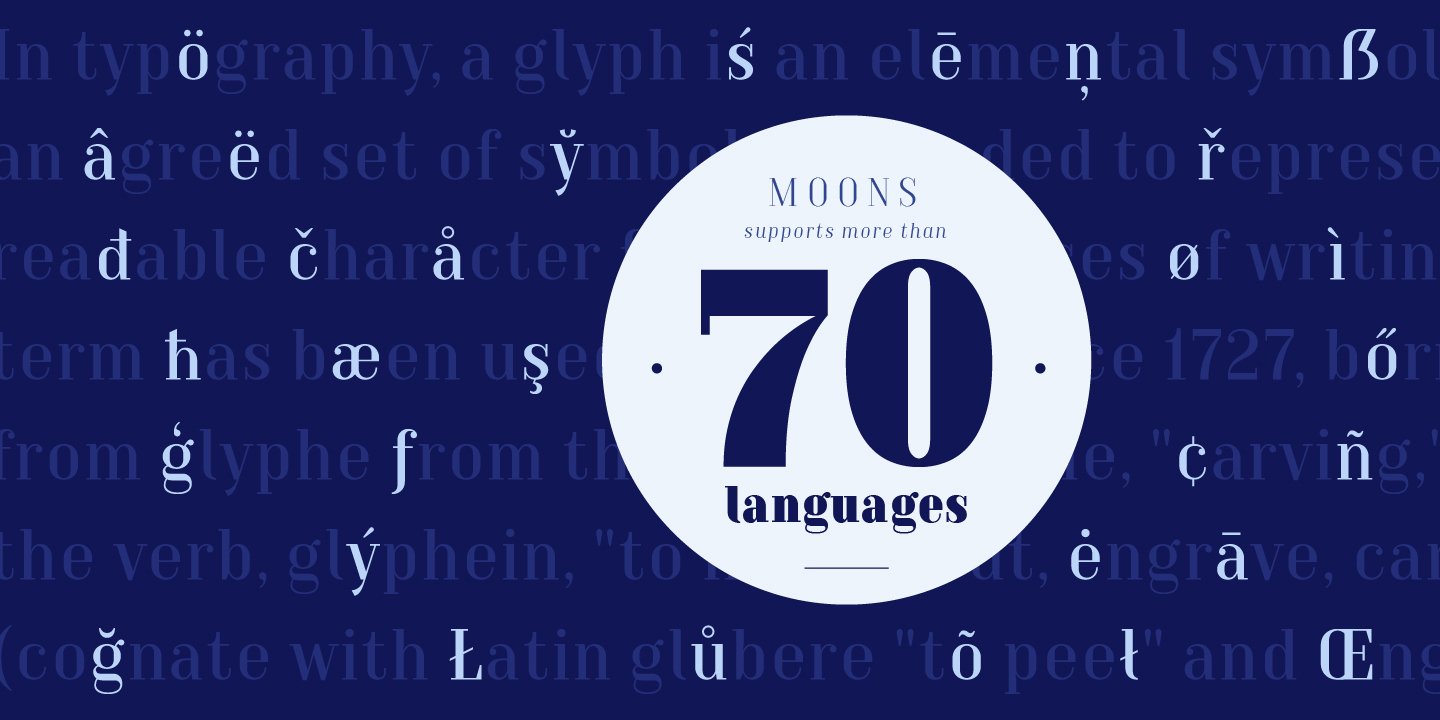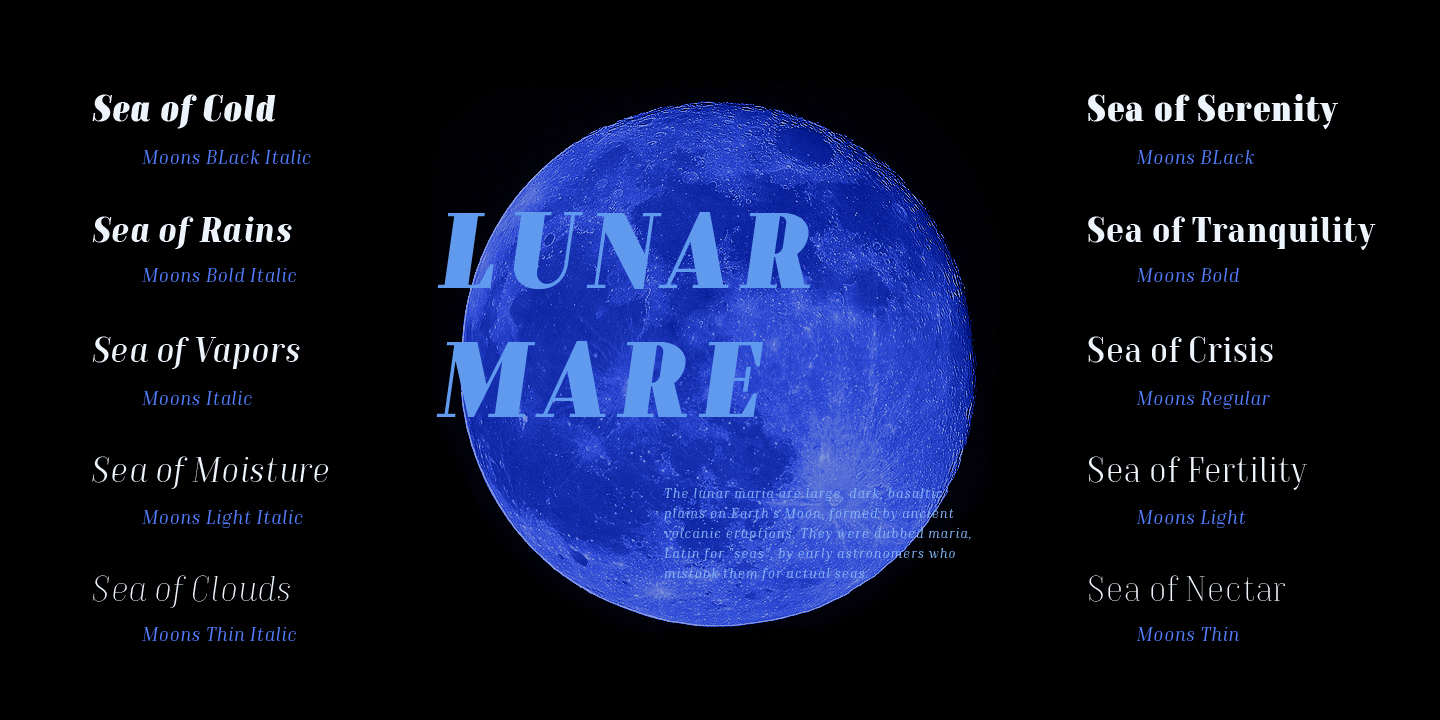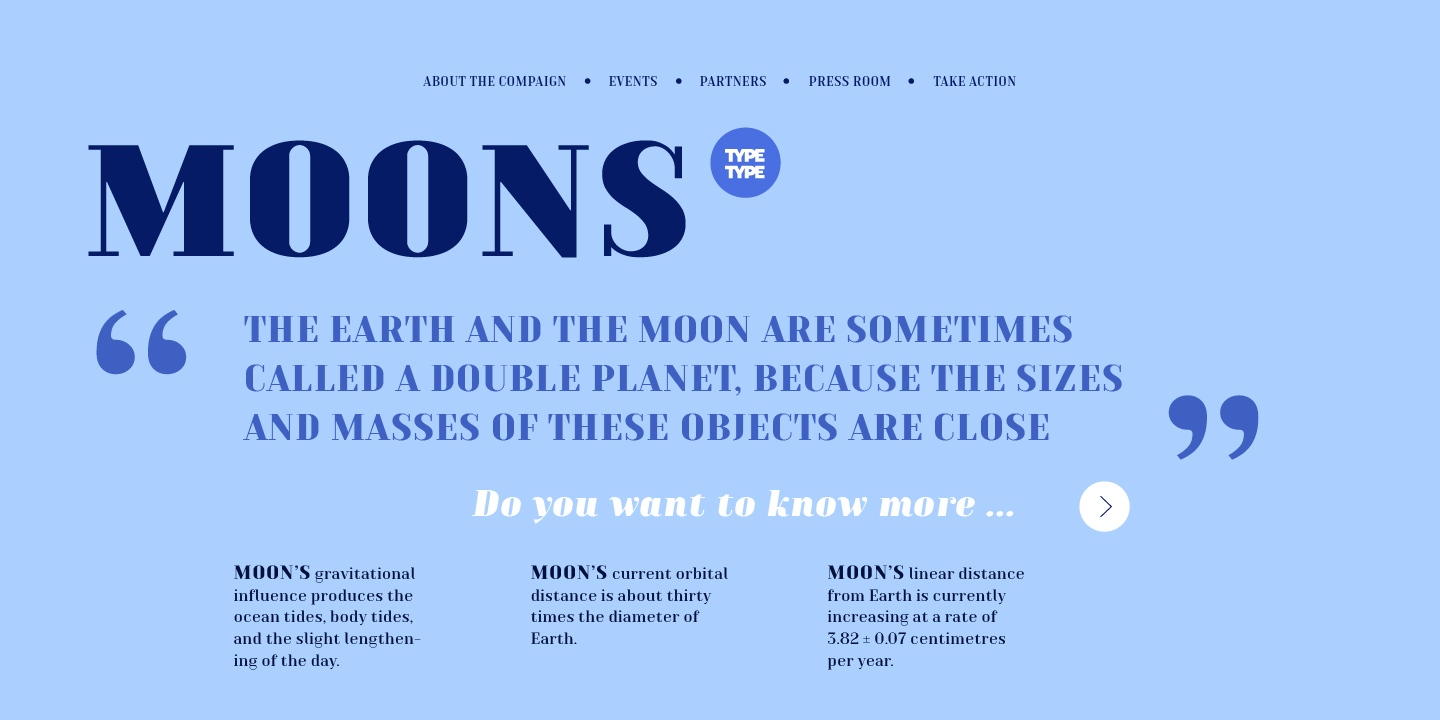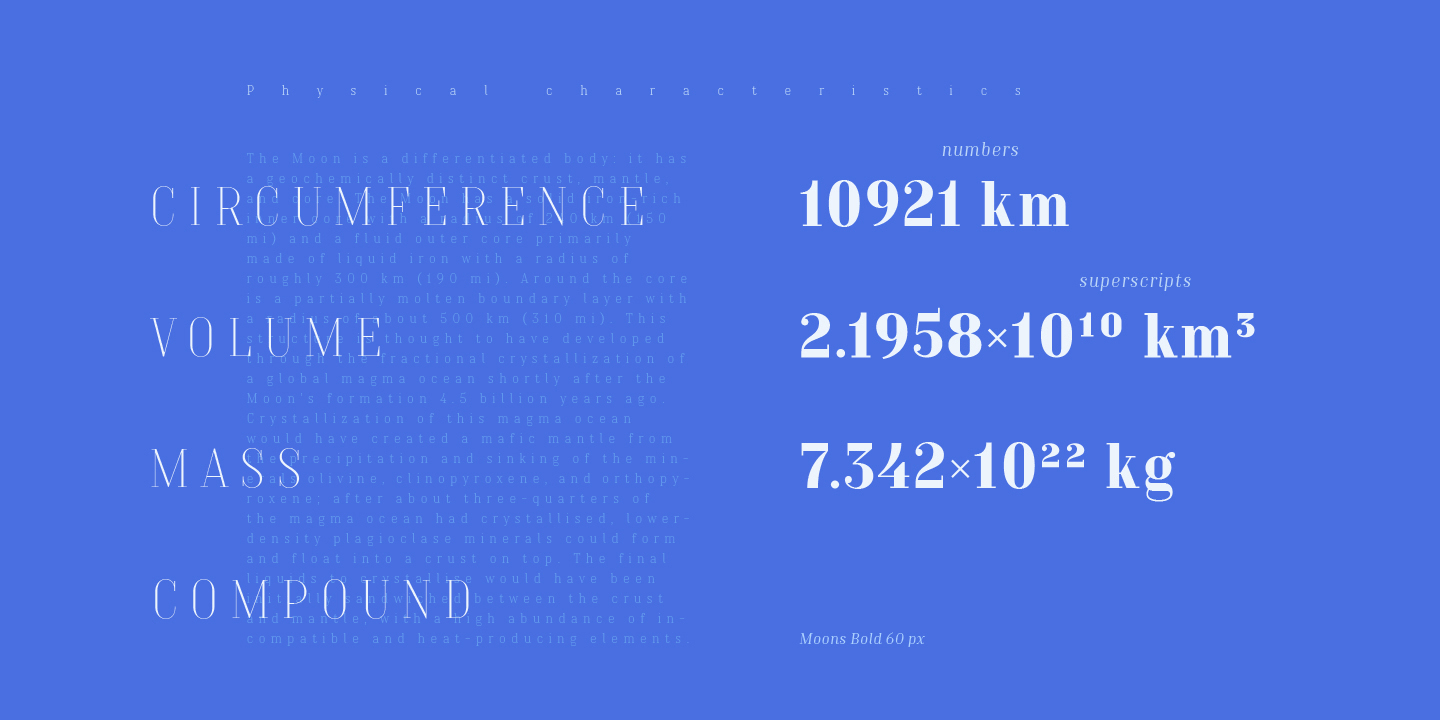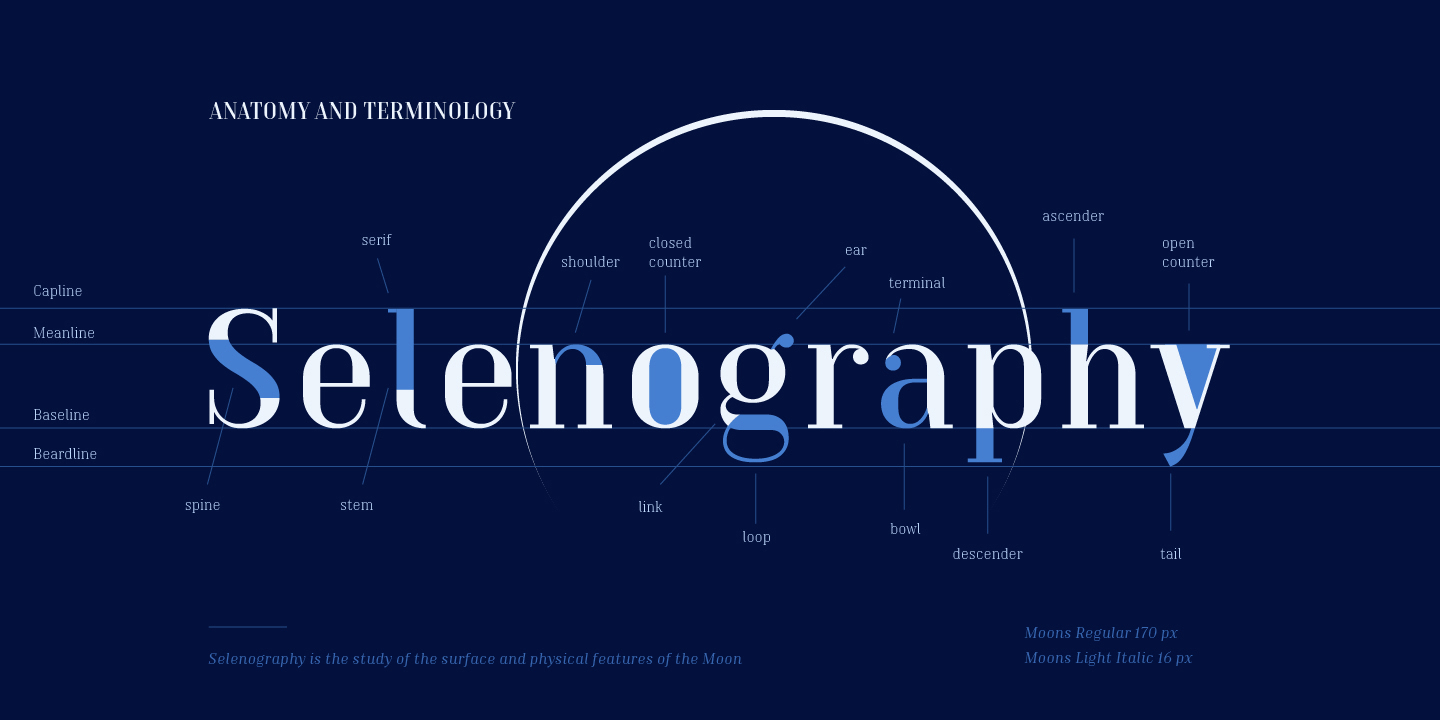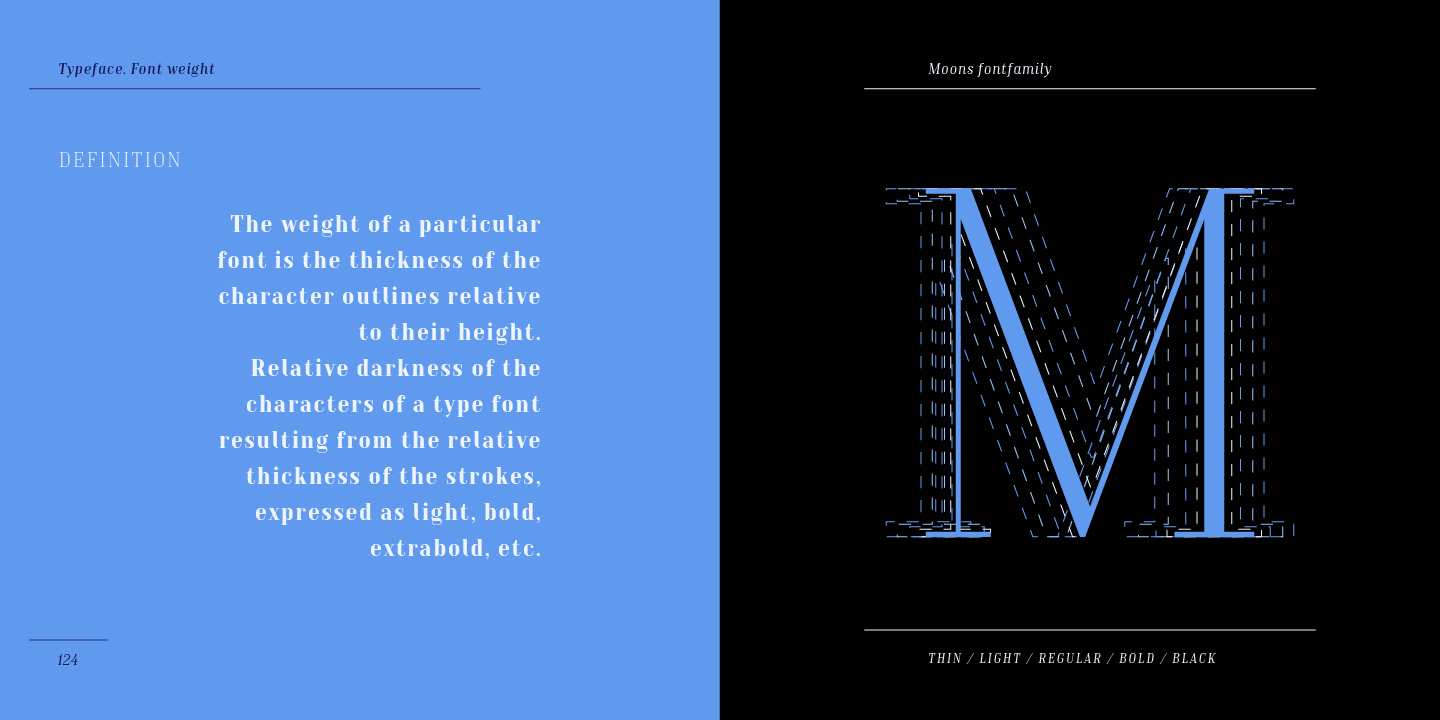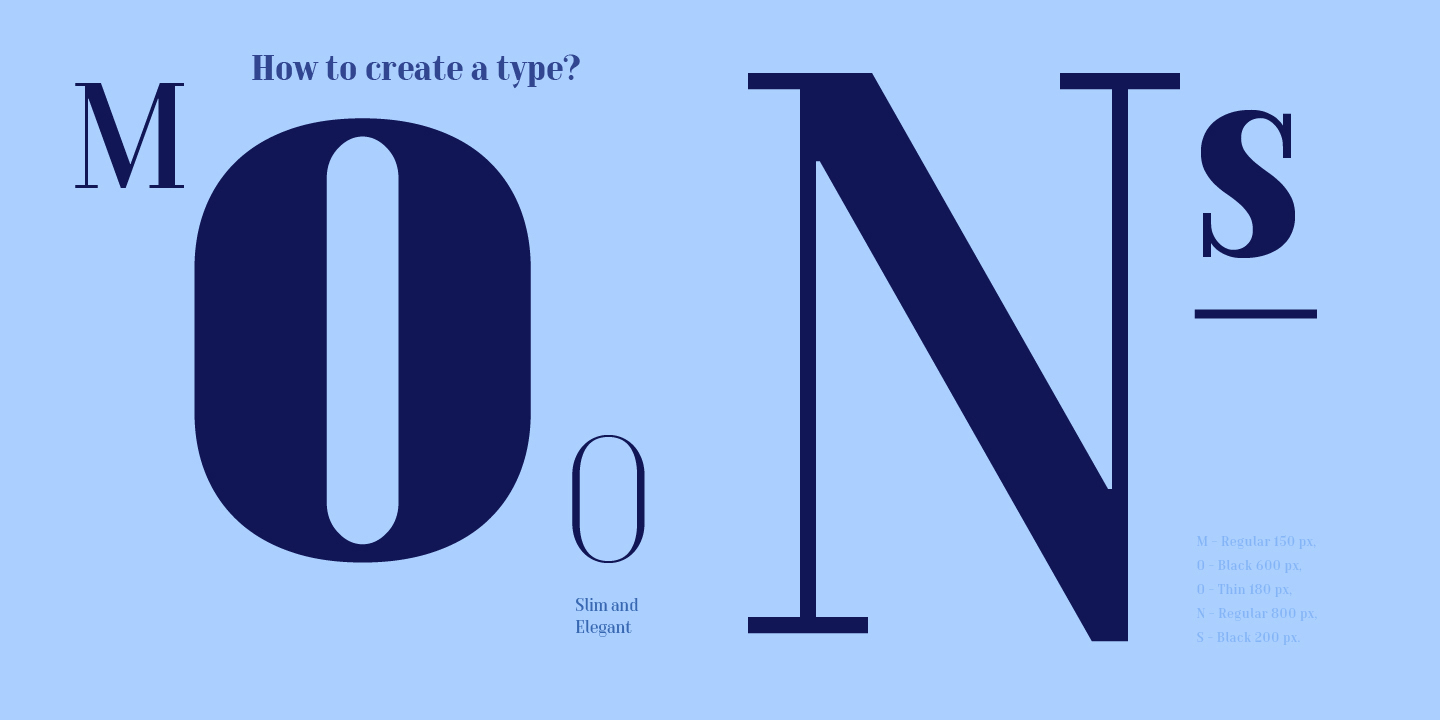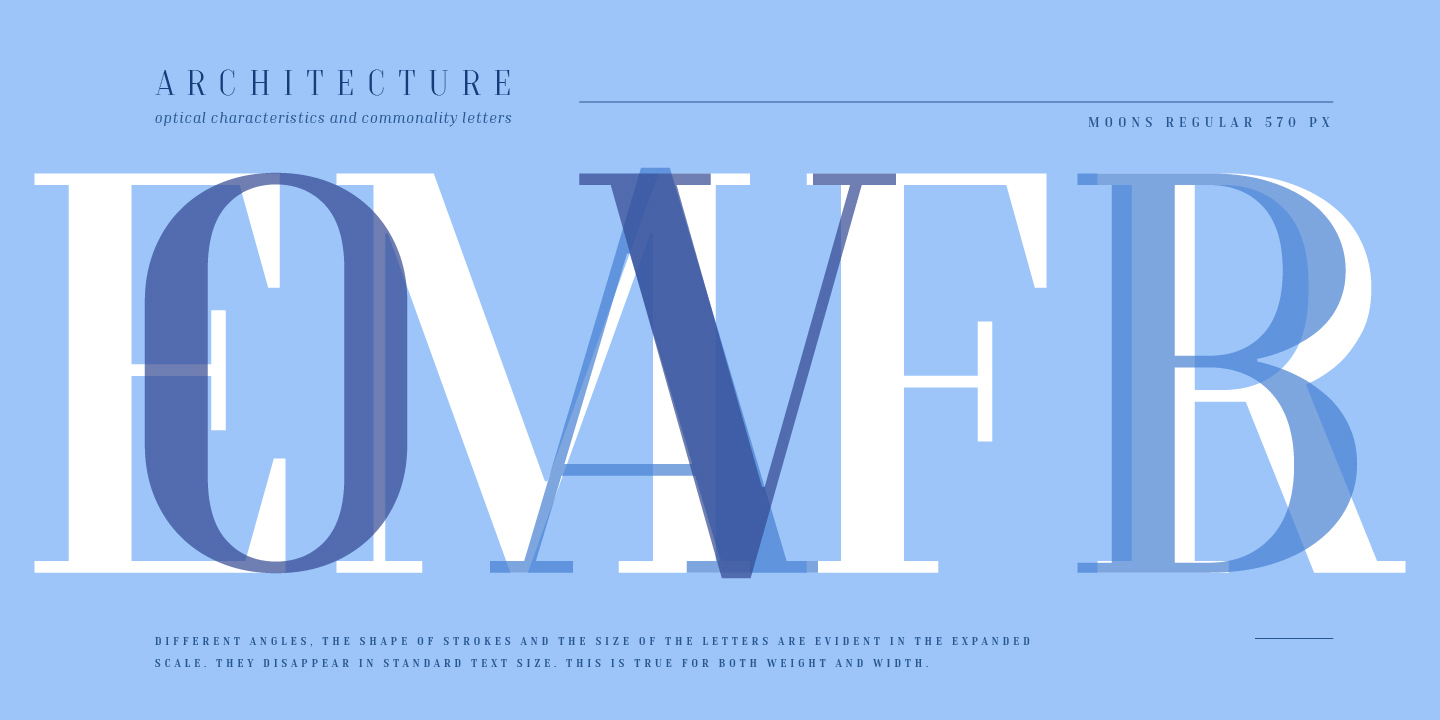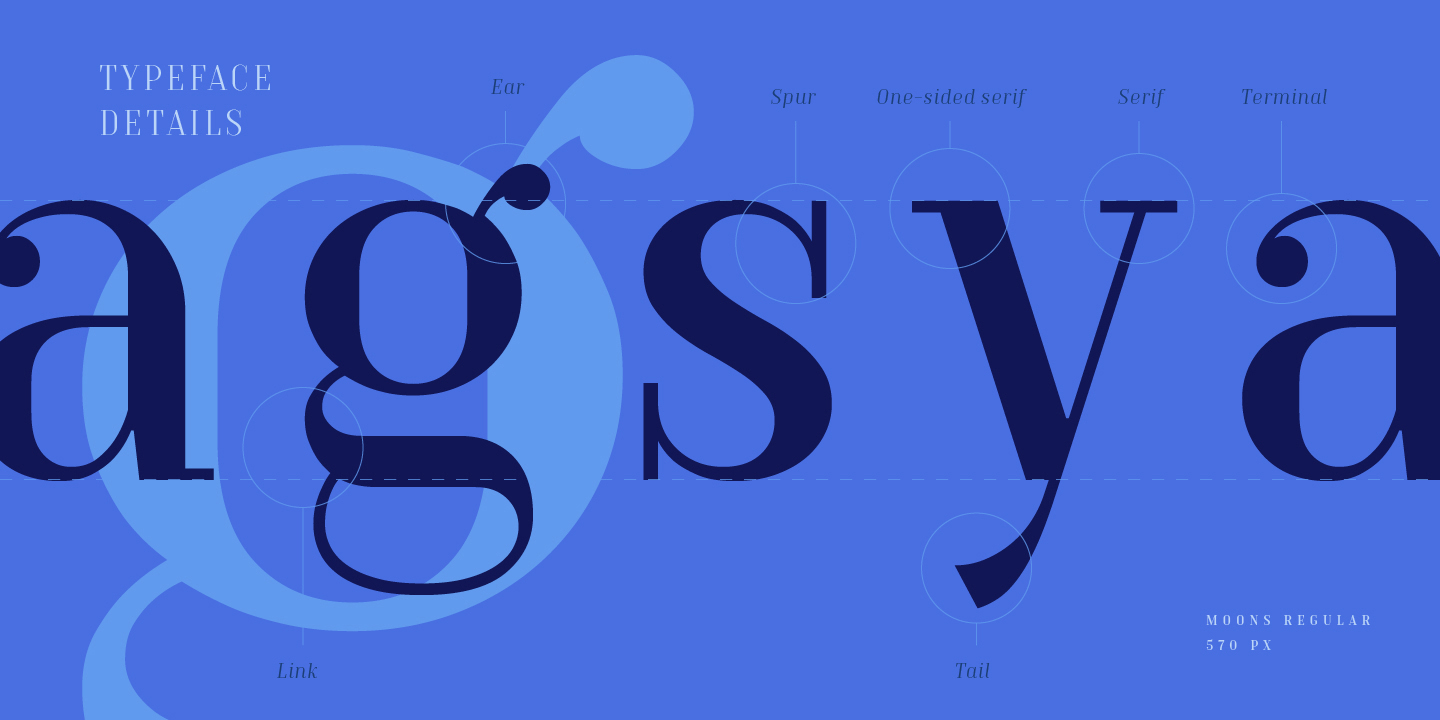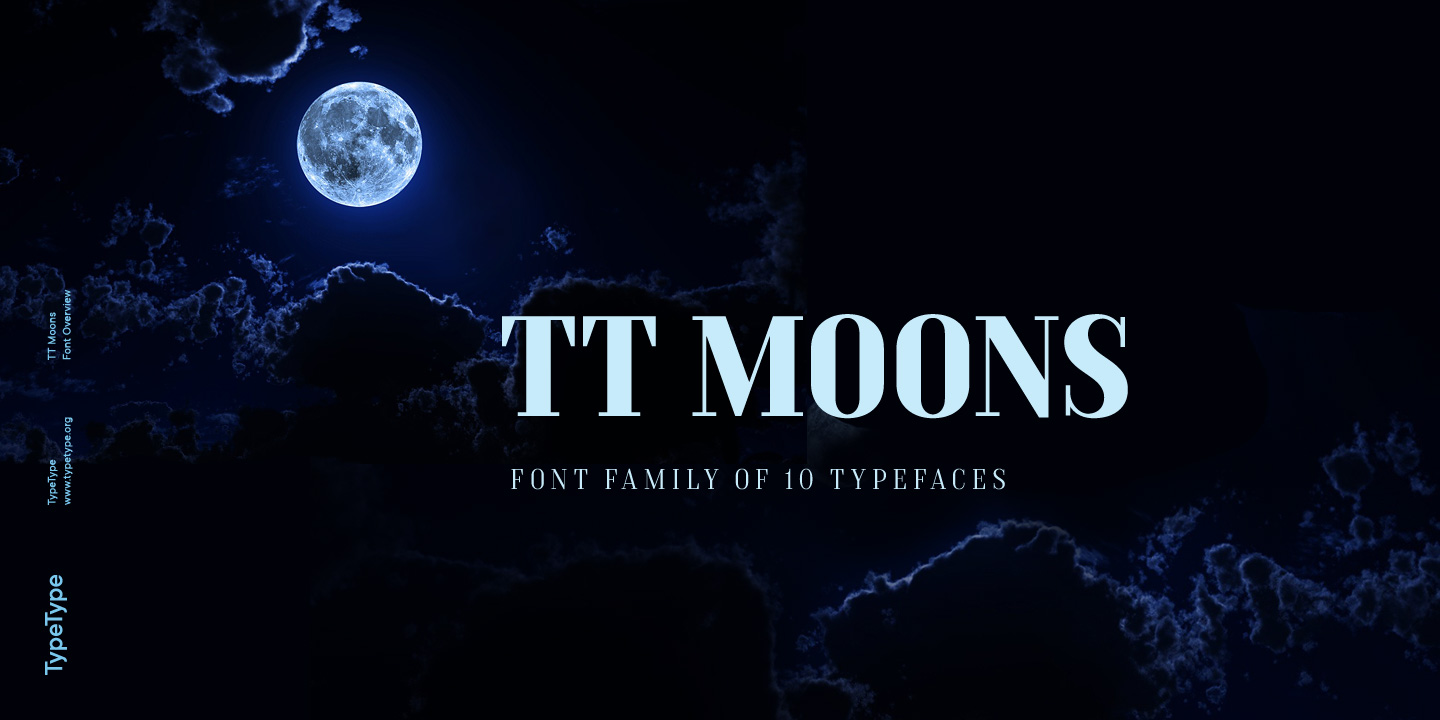
TT Moons is a slim and contrast serif. This fontfamily works especially smart in classic design themes. TT Moons is a typeface of the glyptal modern fontfamily. The ideal application range for this typeface is magazines, books and newspapers layout.
Thanks to its narrow proportions and 5 weights (Thin, Light, Regular, Bold, Black),TT Moons perfectly fits into any contemporary digital design, such as interactive and product design, editorial and corporate web design. This fontfamily is the real work helper and your joker when you need to combine contemporary and classic styles.